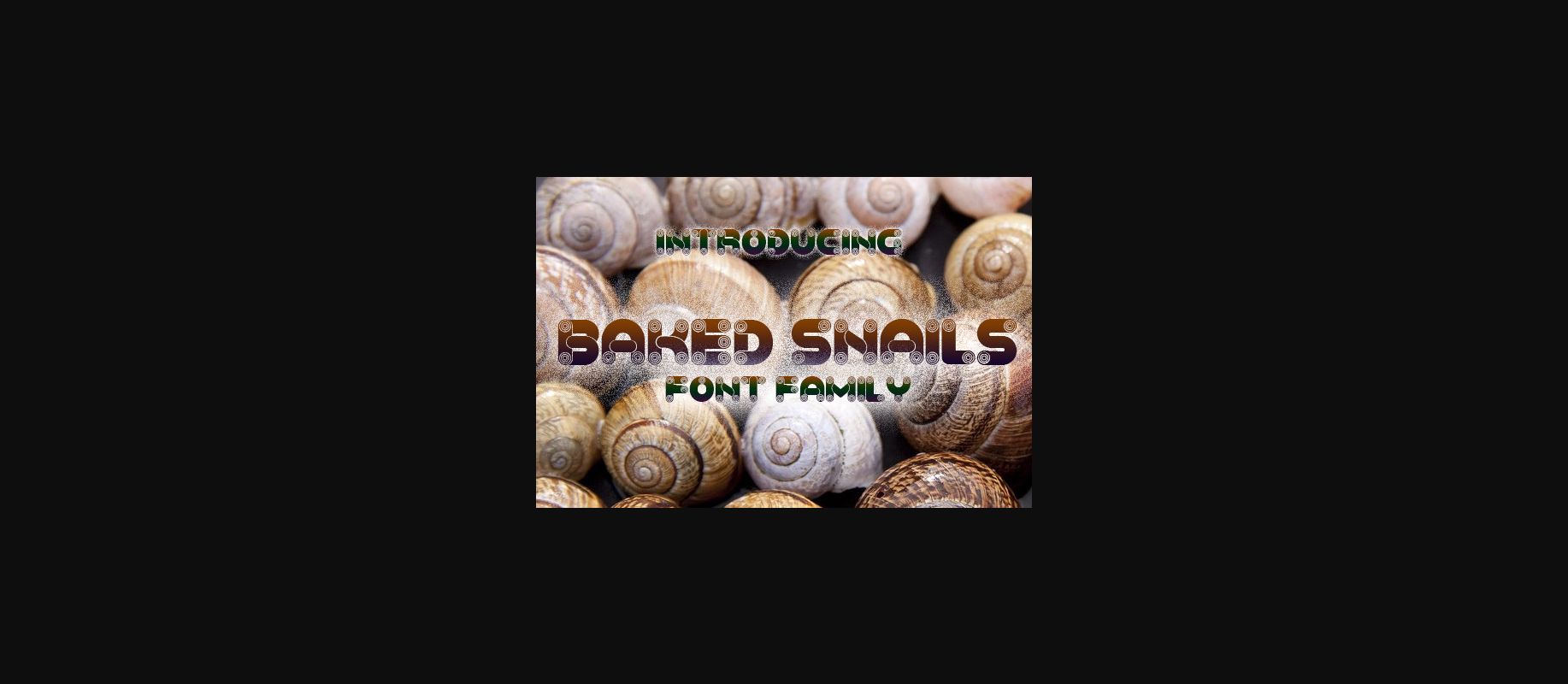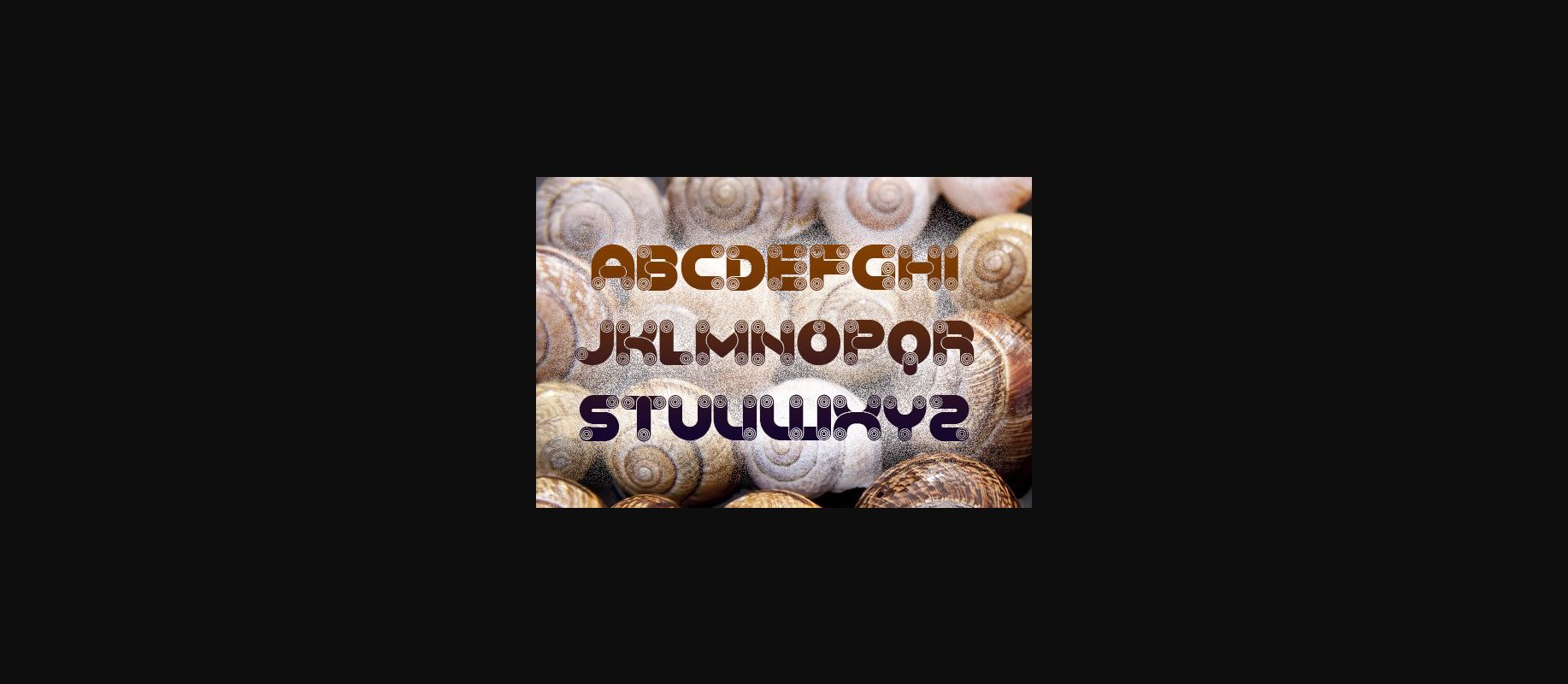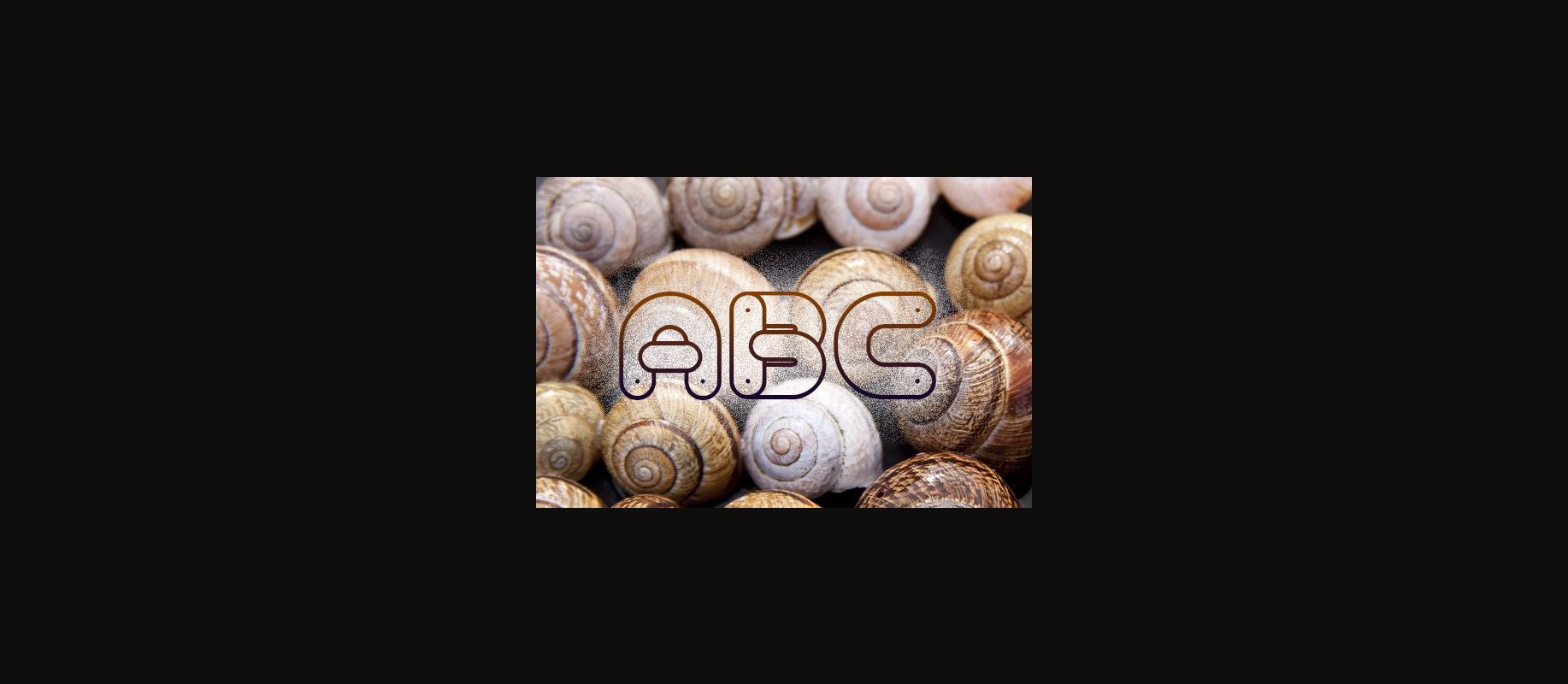
About Baked Snails Font
Baked Snails is a cool and unique decorative font family that will fit any of your designs. Use this font on posters, flyers, and much more.